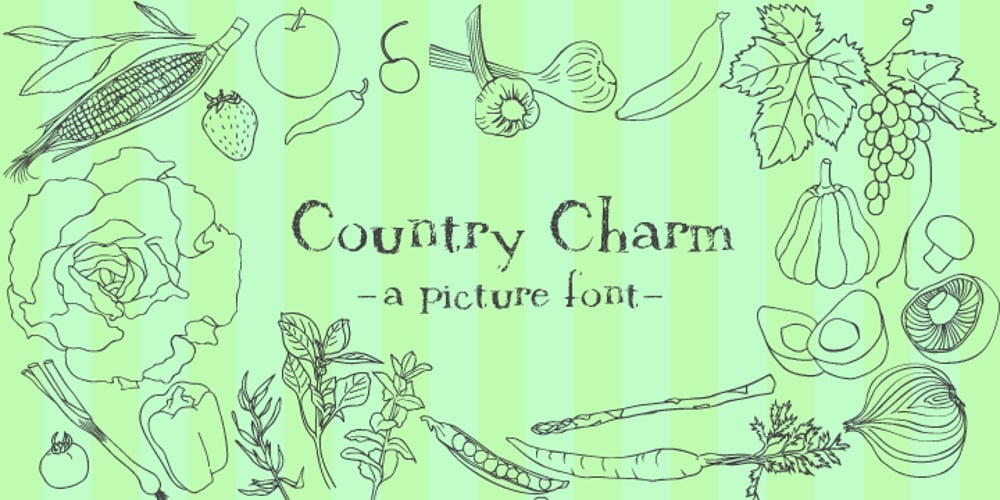
Country Charm Font Family was designed by Natsuko Hayashida and published by Okaycat. Country Charm contains 2 styles and family package options. Country Charm is a picture font. A cute collection of vectored sketches brought to life by designer Natsuko Hayashida. More than 50 unique illustrations. Her depictions of fruits, vegetables & herbs are beautiful organic shapes, perfect for you to use on signs, posters, invitations, and more.